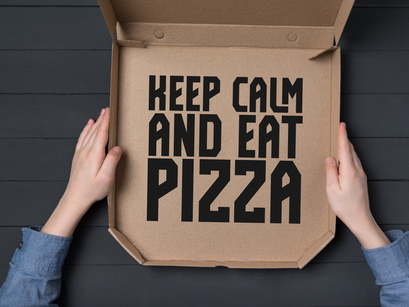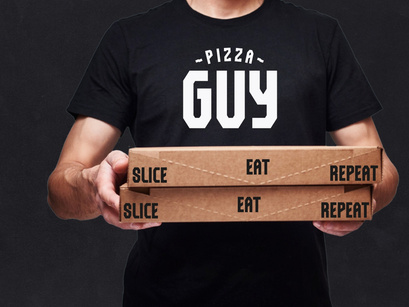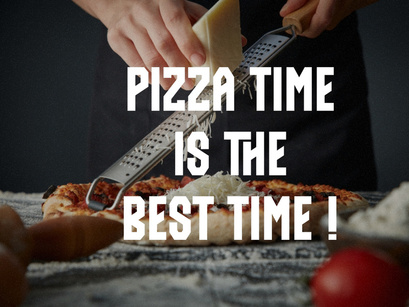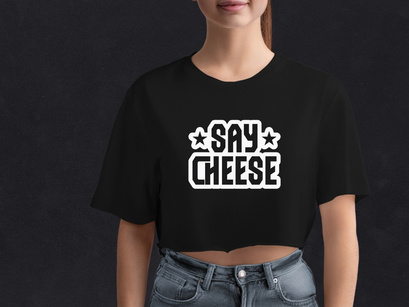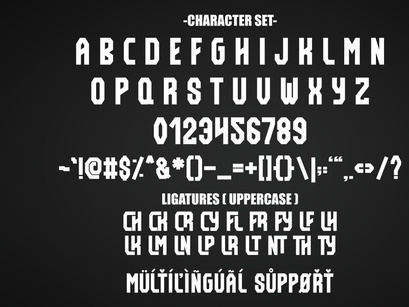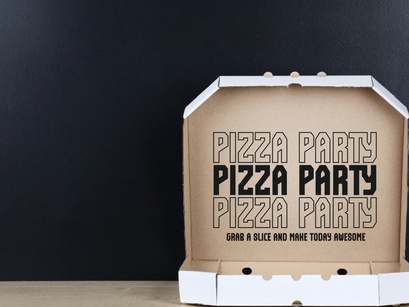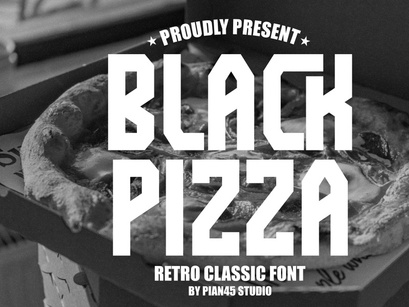
Black Pizza is a strong and assertive Retro Classic Font, built for bold impact and a recognizable vintage feel. This ultra-bold, all-caps display font features sharp, geometric corners, making it perfect for food branding, sports apparel, retro posters, and aggressive headlines. It delivers a punchy, confident aesthetic, ideal for projects that require a powerful visual statement, such as logo design for restaurants, cafes, or vintage-inspired merchandise.